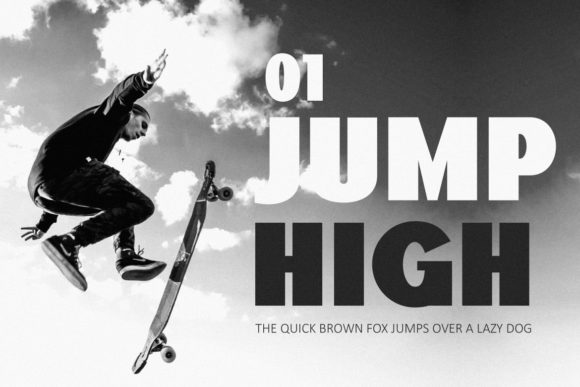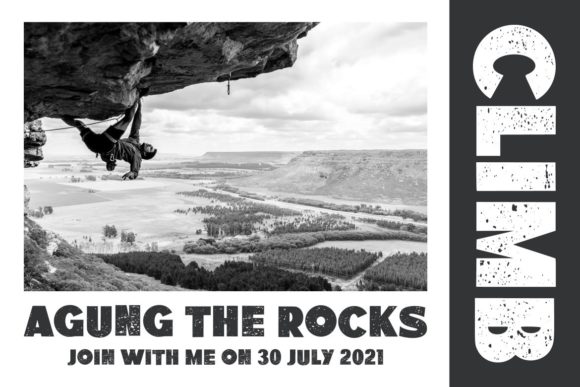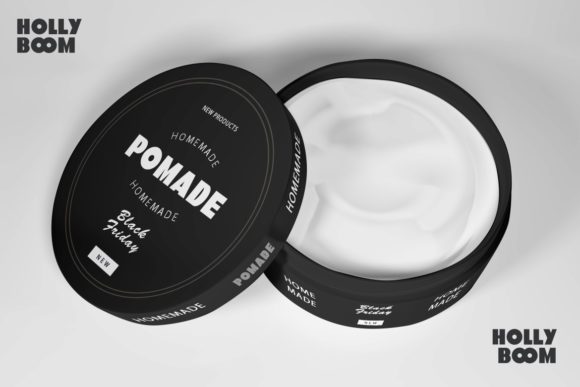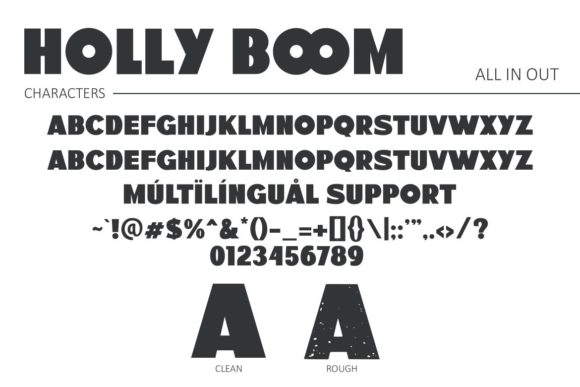
Introduction to Holly Boom Font
Holly Boom is a cool, bold and thick lettered display font.
No matter the topic, this font will be an incredibly asset to your fontsโ library, as it has the potential to elevate any creation .
Key Features of Holly Boom Font
Why Choose Holly Boom Font?
Holly Boom Font offers exceptional quality and versatility, making it a valuable addition to your design toolkit. Whether you’re creating for personal projects or commercial use, Holly Boom Font delivers professional results.